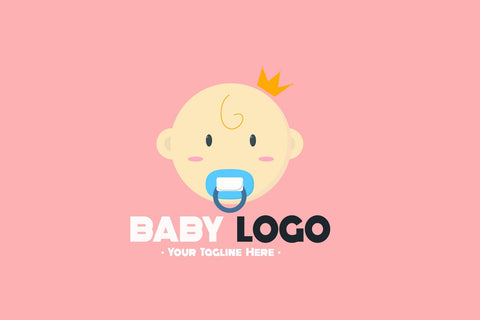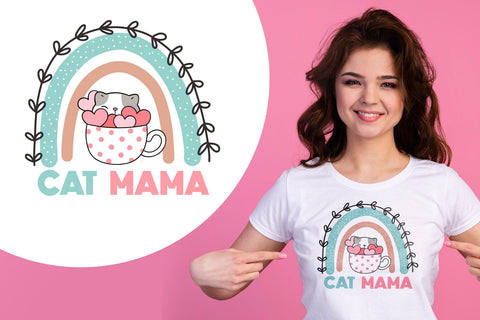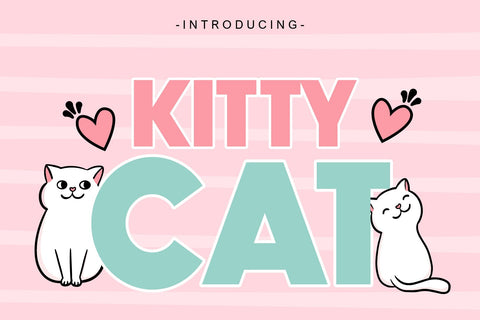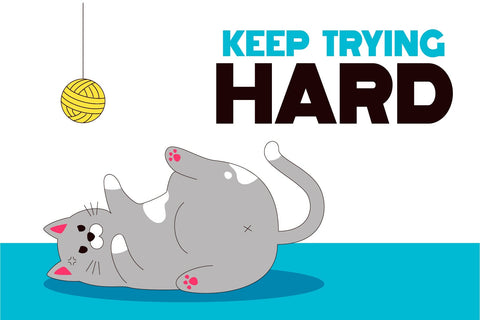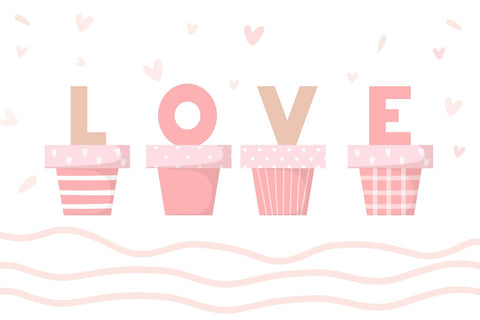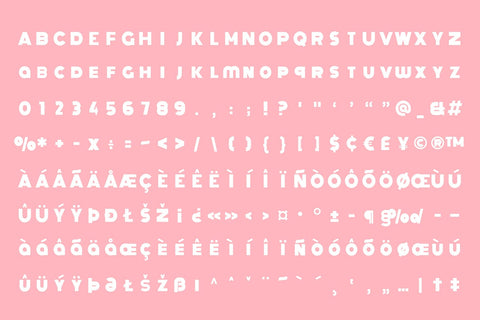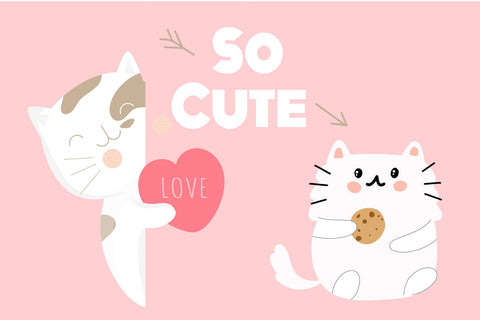
Kitty Cat Fonts
Kitty Cat Fonts It's a bold display font that looks cute and fun. Whether you’re using it for crafts, digital design, presentations, or making greeting cards, this font has the potential to become your favorite go-to font, no matter the occasion!